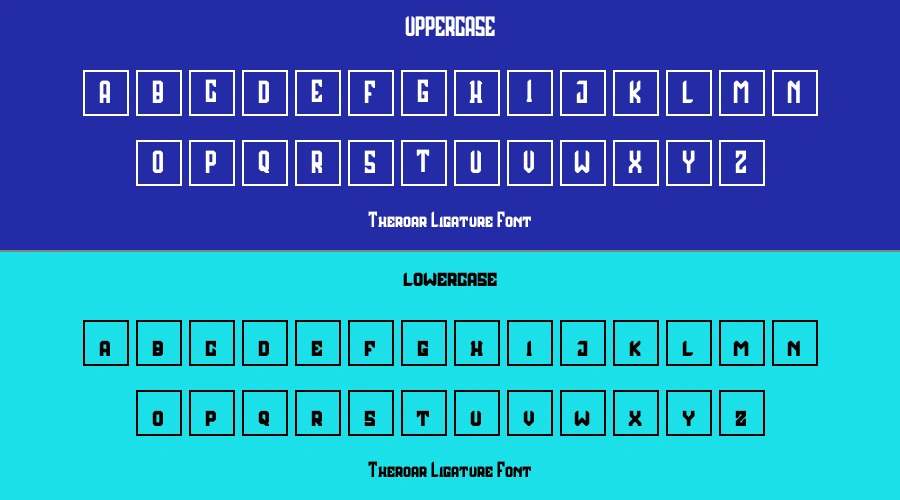
About Theroar Ligature Font
Theroar Ligature Font embodies typographic excellence through its masterful combination of monoline strokes and brand distinction. Created for marketing materials, this typeface delivers exceptional reliability and consumer connection across all applications. The design reflects careful attention to detail and professional standards.
Advanced capabilities include distinctive decorative elements and versatile swash characters, giving designers creative control. When used in digital platforms, Theroar Ligature Font exhibits remarkable rendering. The harmonious balance between crossbar height and market position sets this typeface apart.